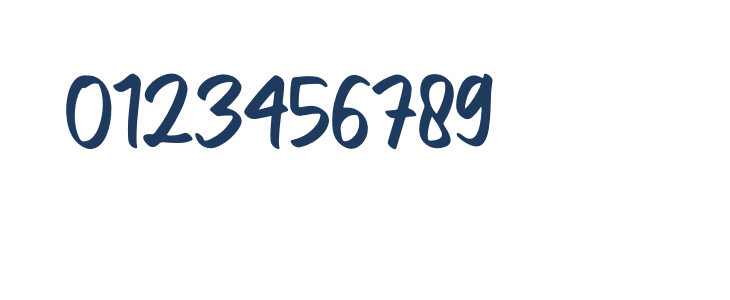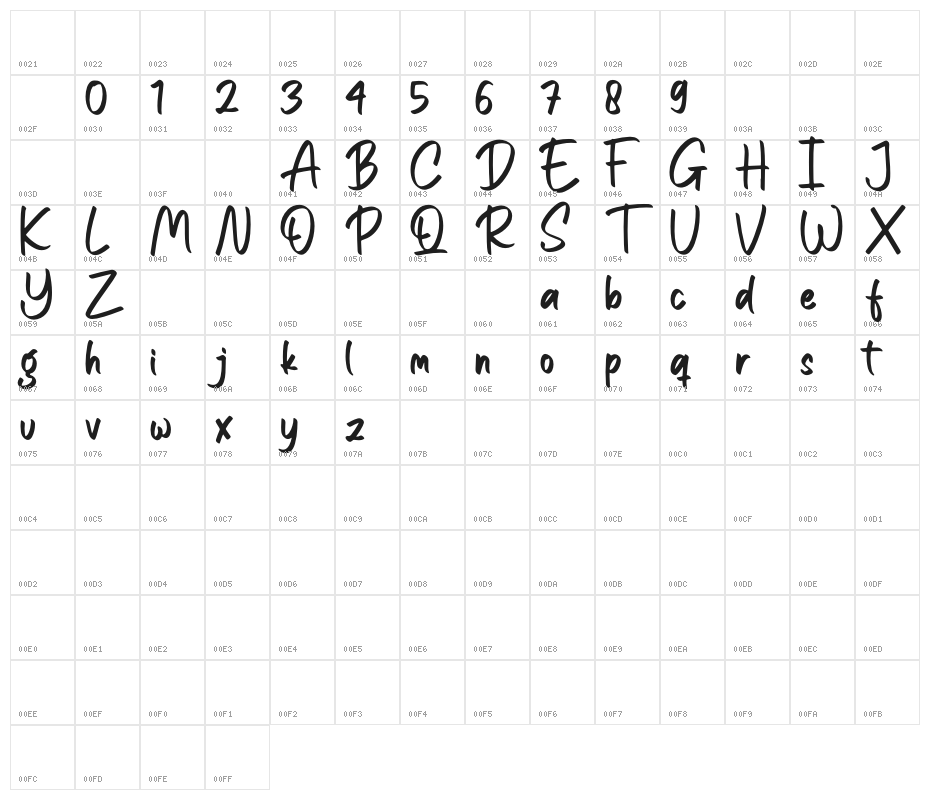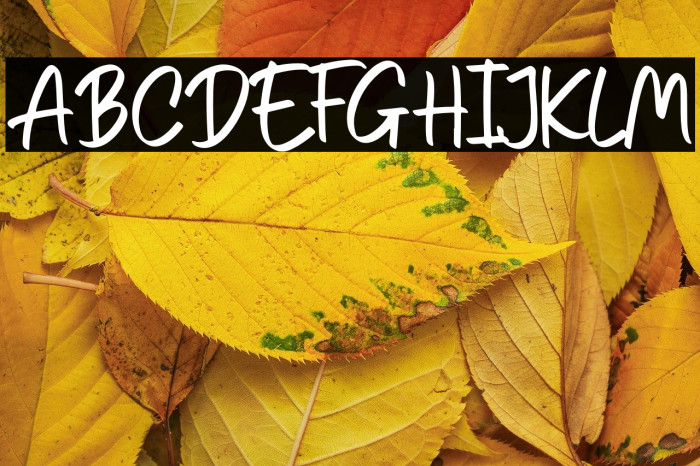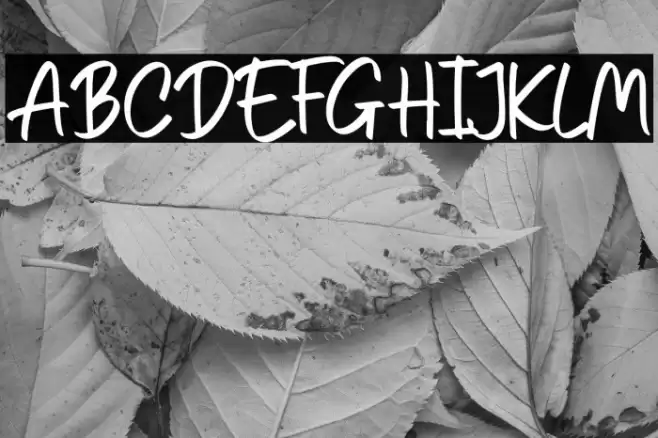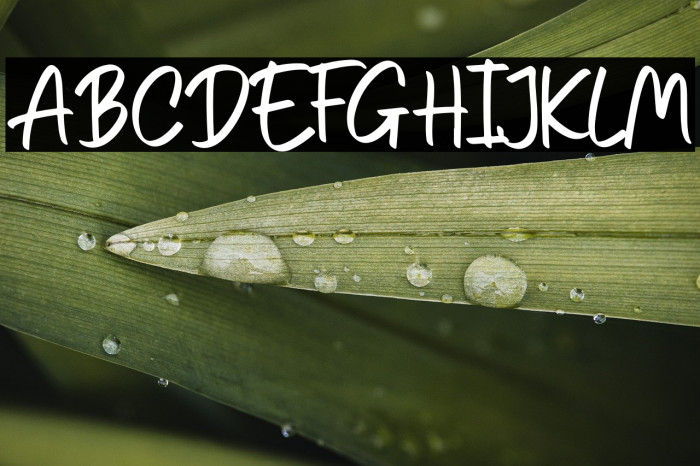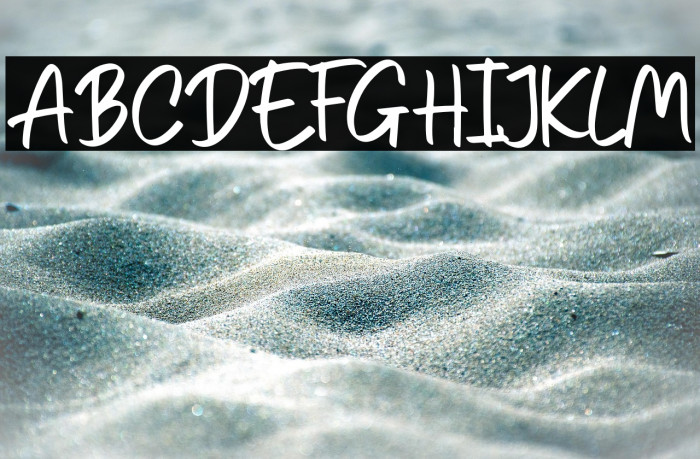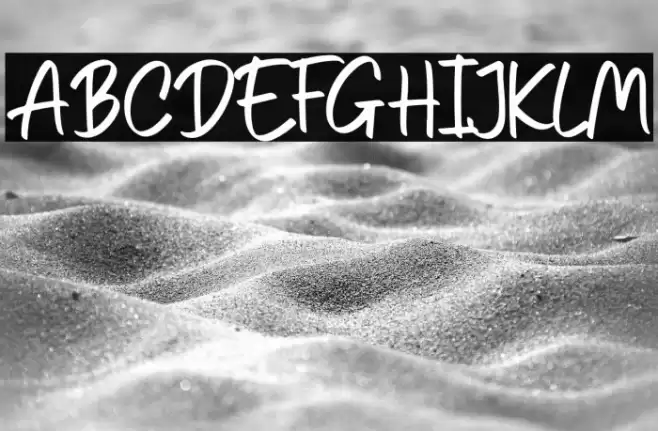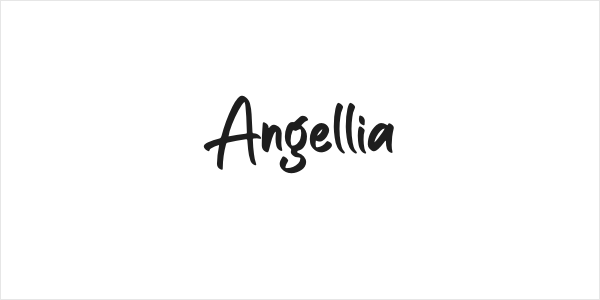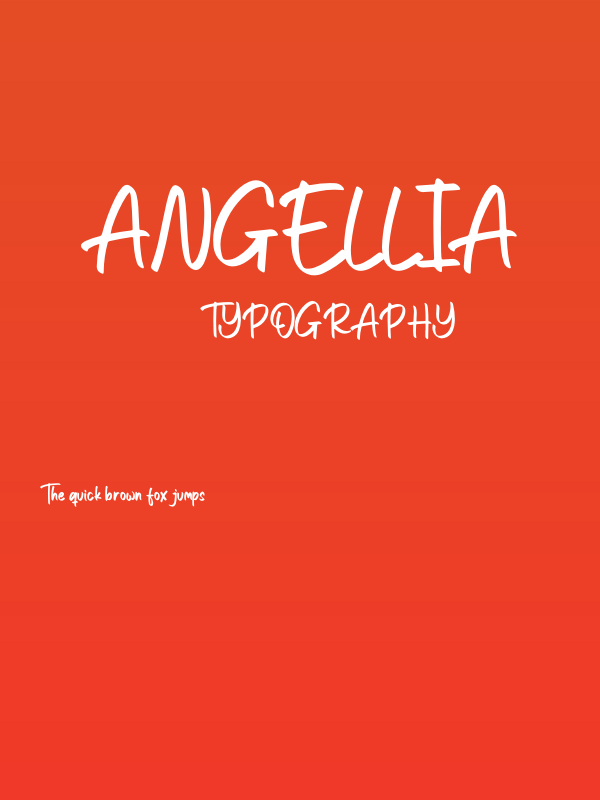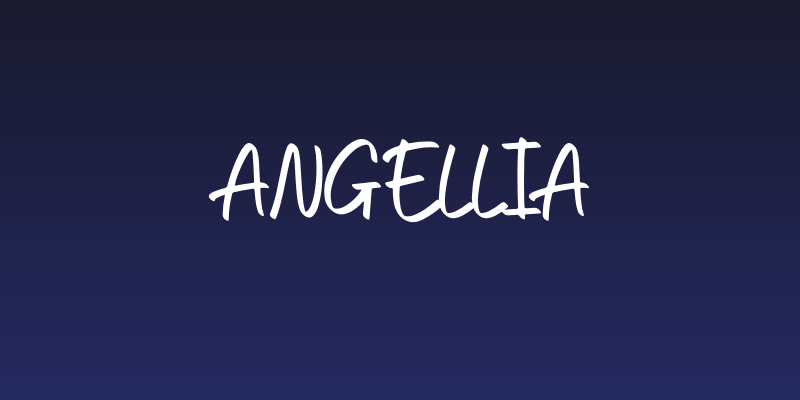
Angellia Font
Angellia Description
This font exudes a playful and energetic vibe with its handwritten style. The uppercase letters are bold and slightly irregular, giving a casual and approachable feel. The lowercase letters maintain a consistent flow, enhancing readability while retaining a personal touch. The numbers are robust and clear, making them suitable for various applications. Special characters are creatively integrated, adding to the font's versatility. Overall, this font is perfect for projects that require a friendly and informal tone, such as invitations, greeting cards, or social media graphics.